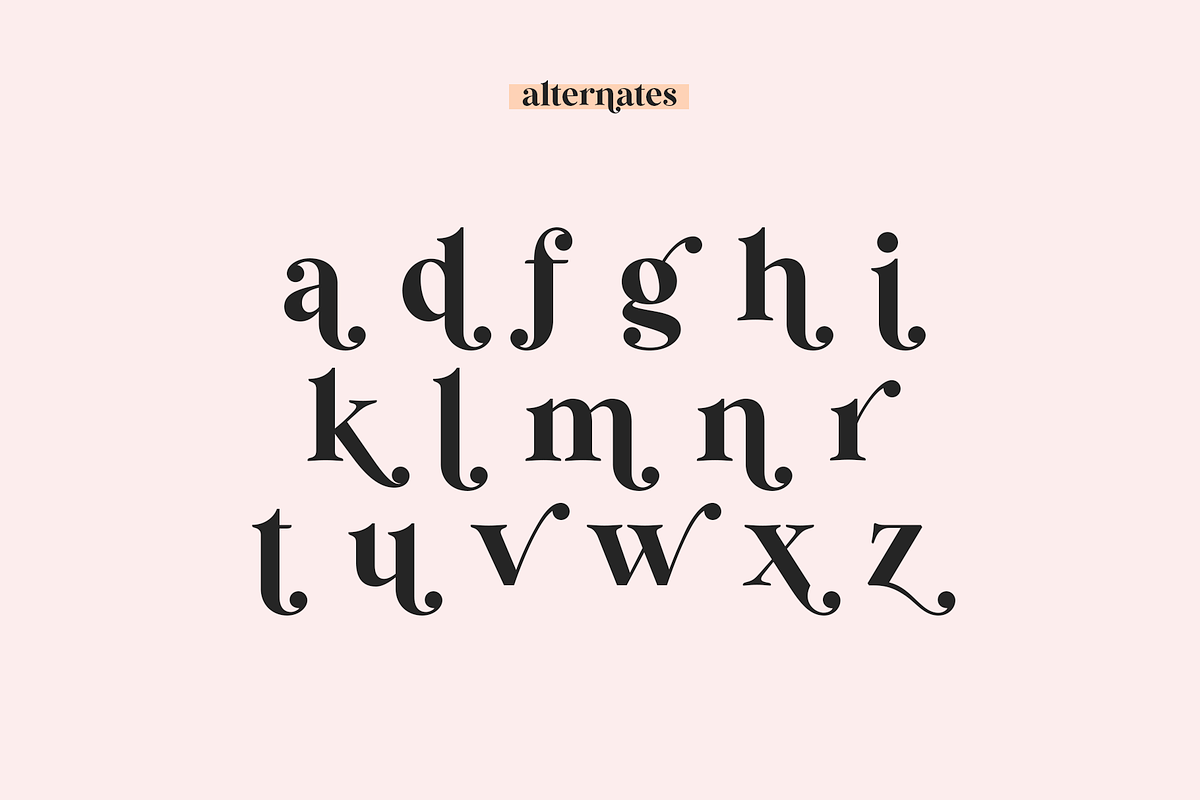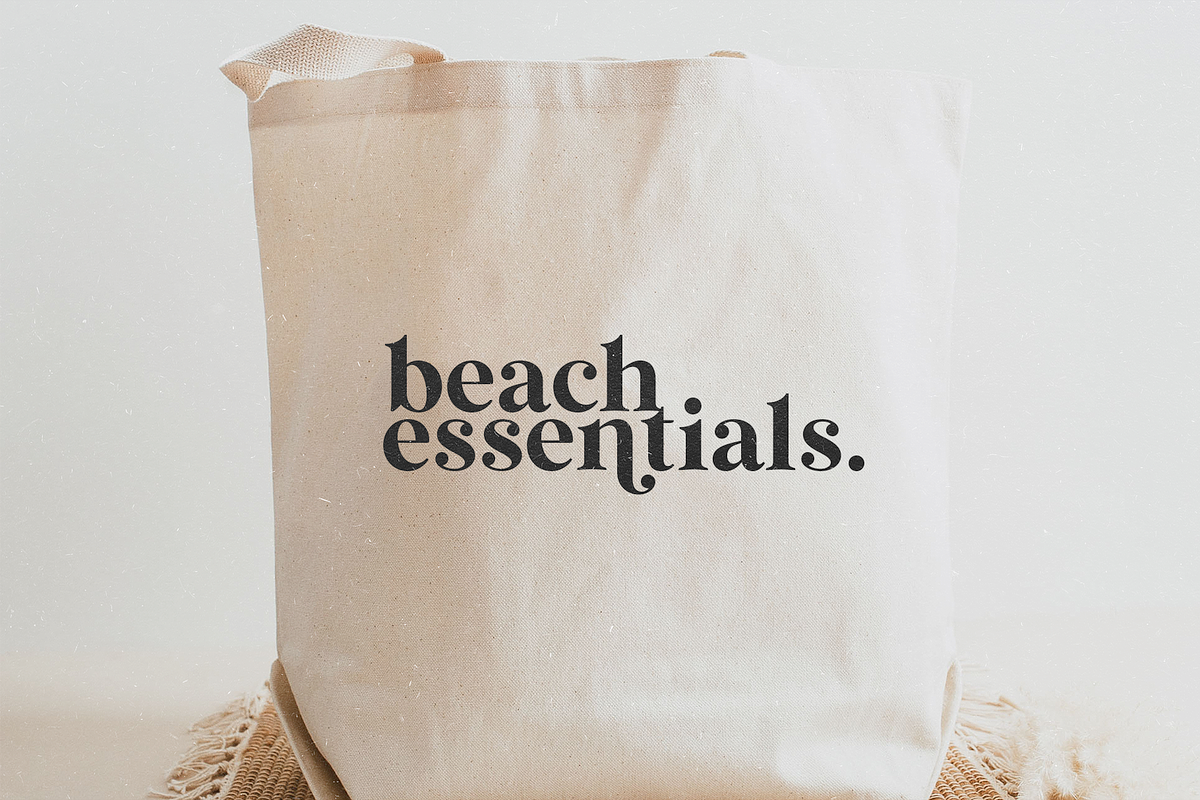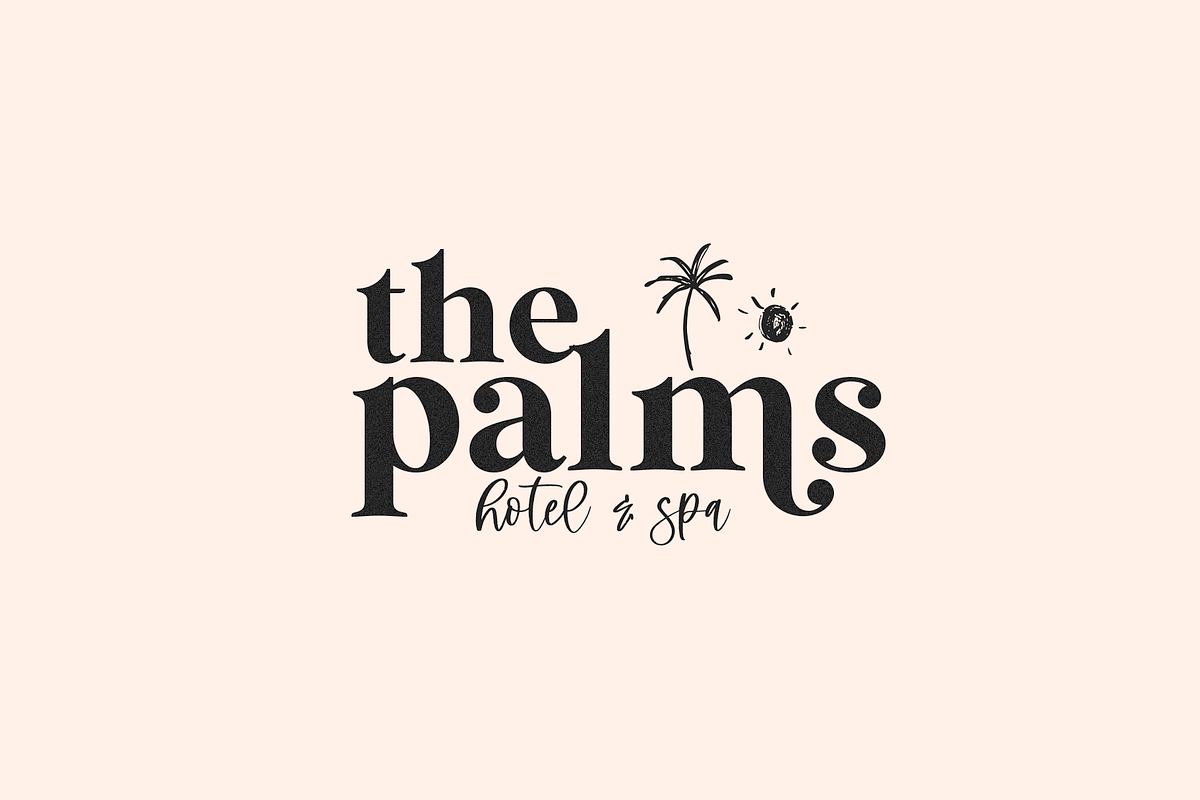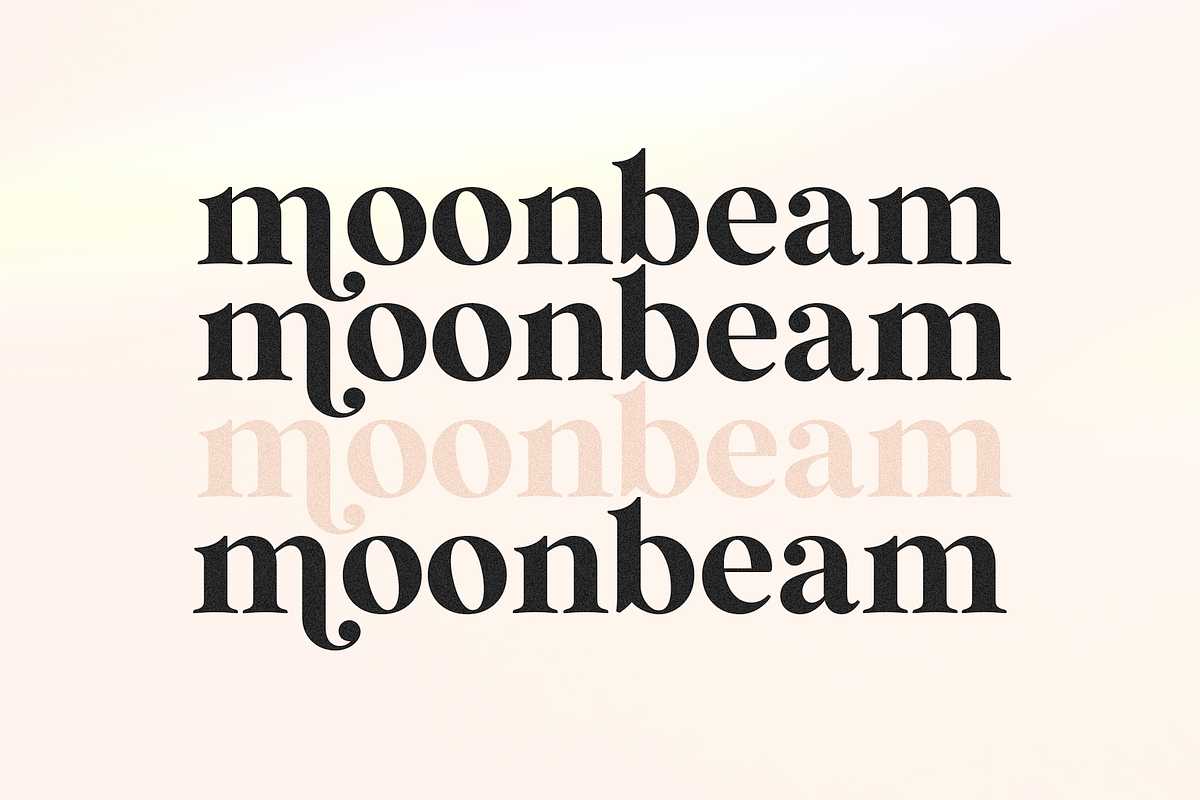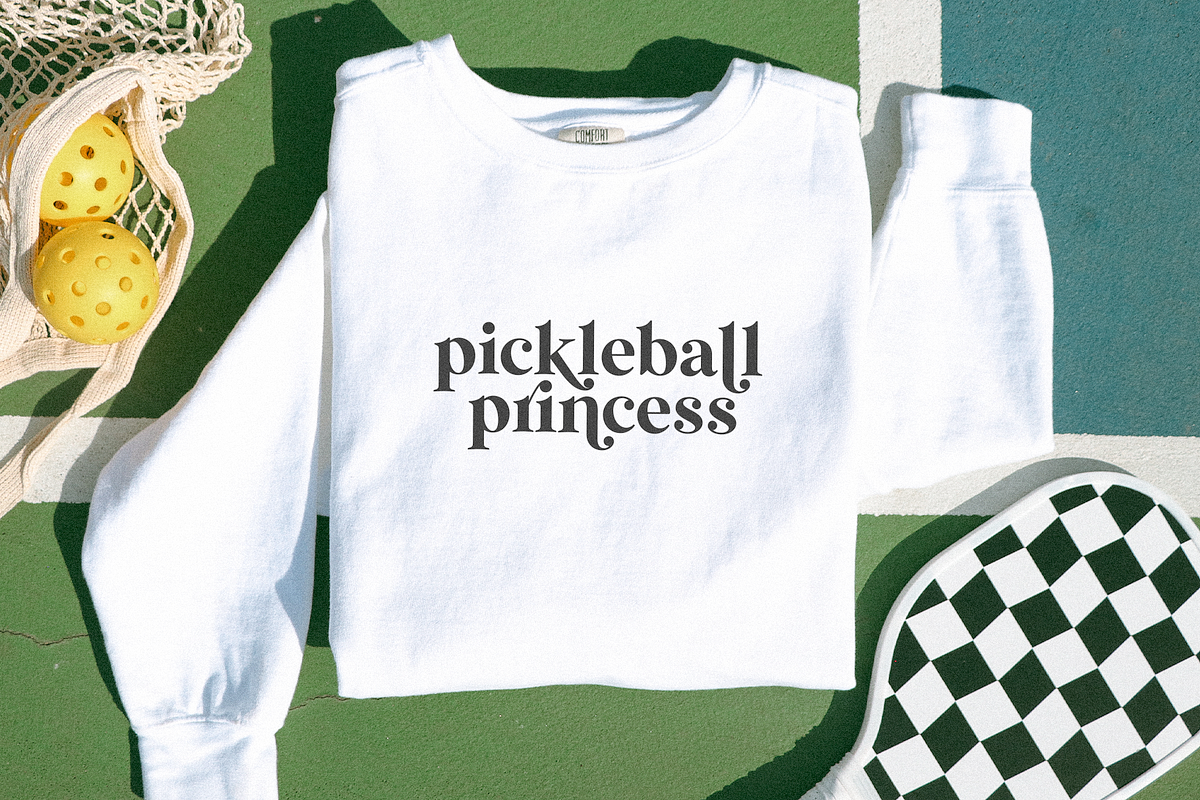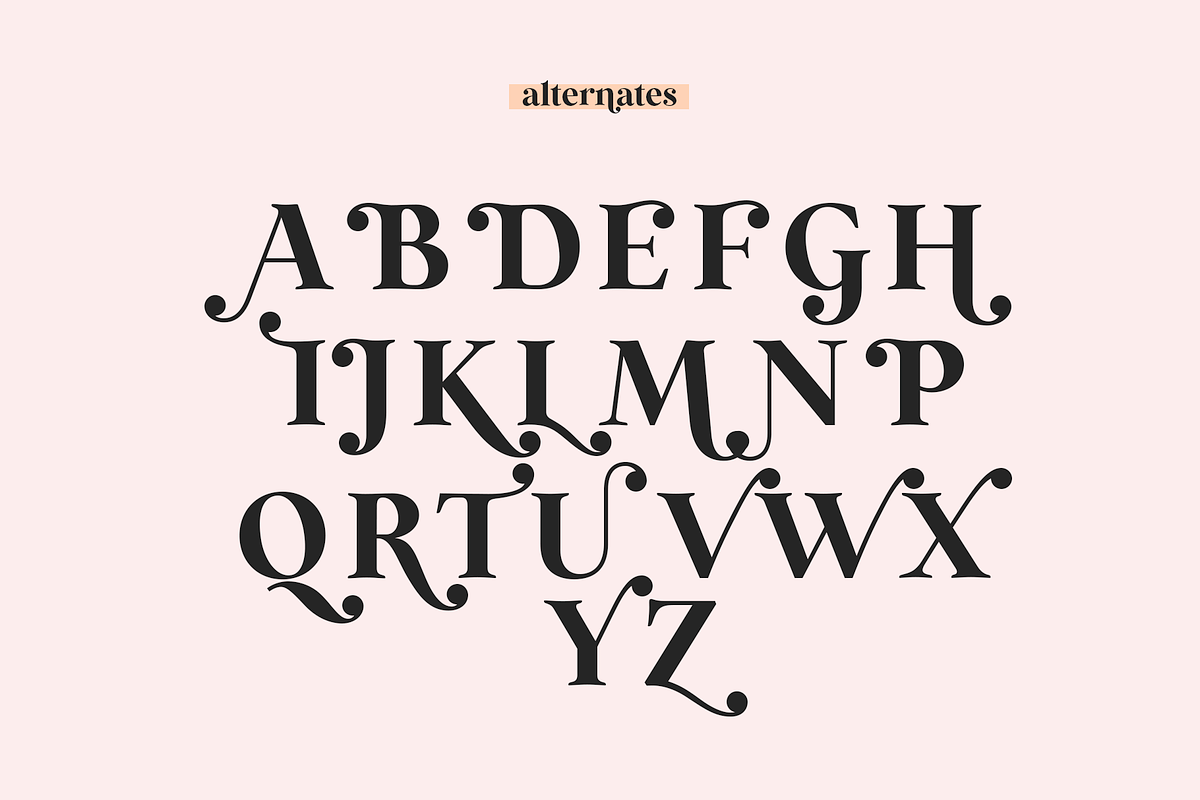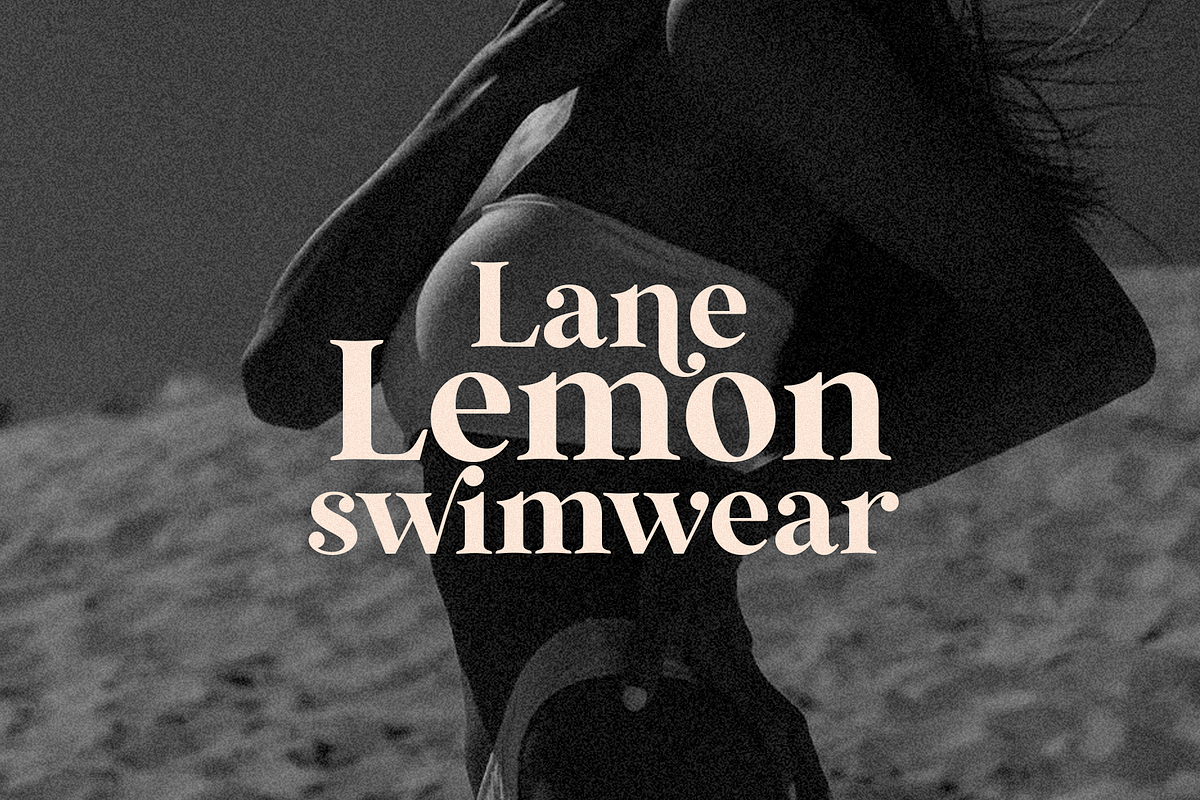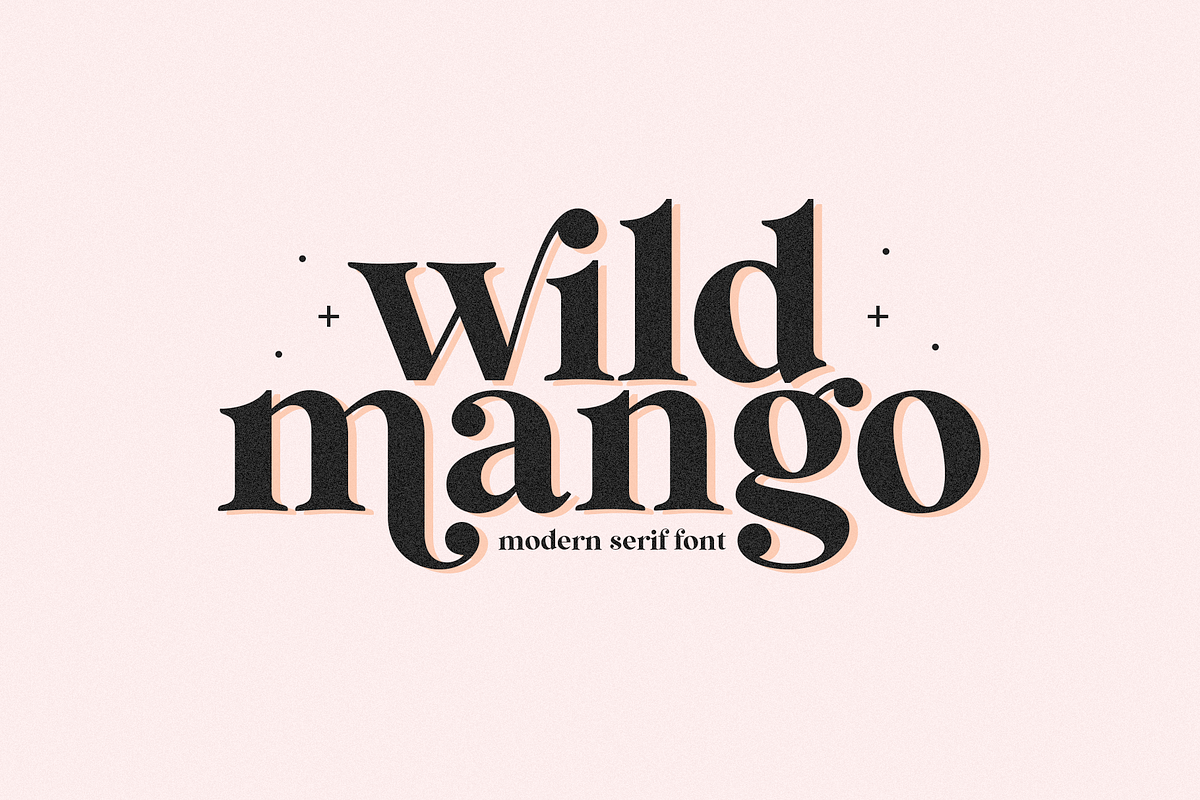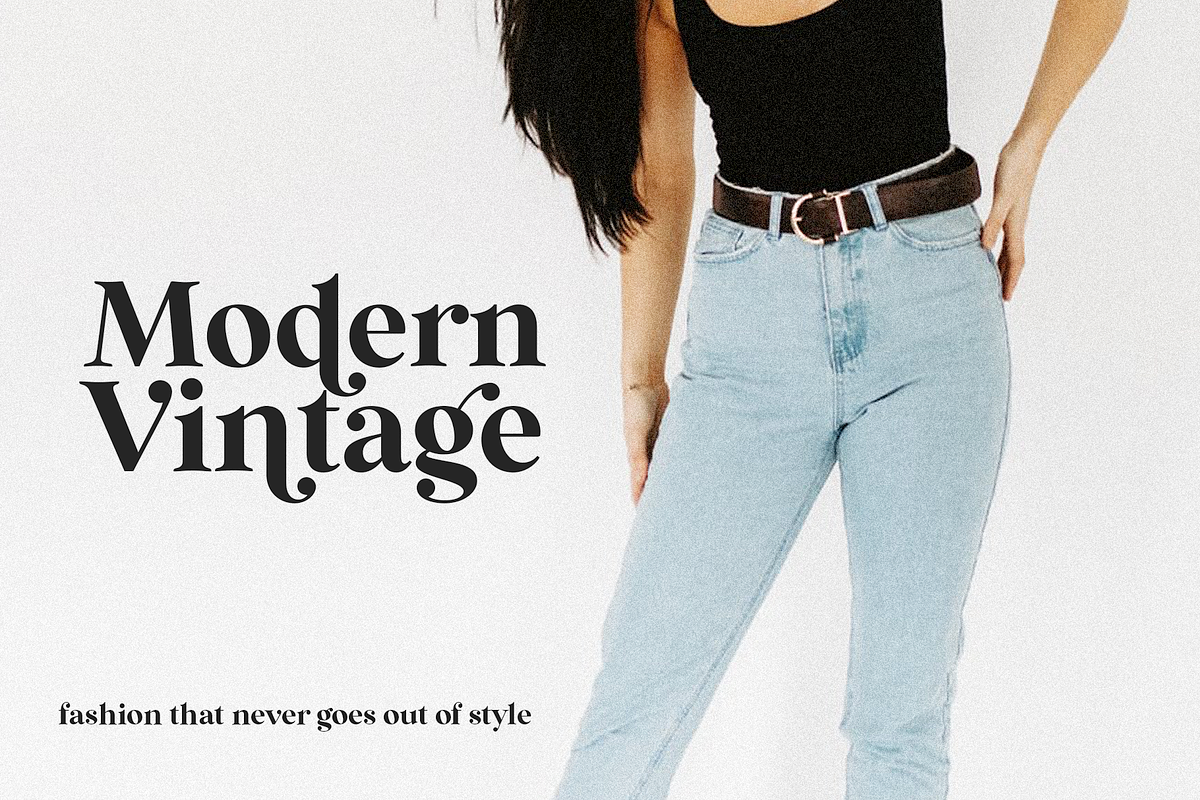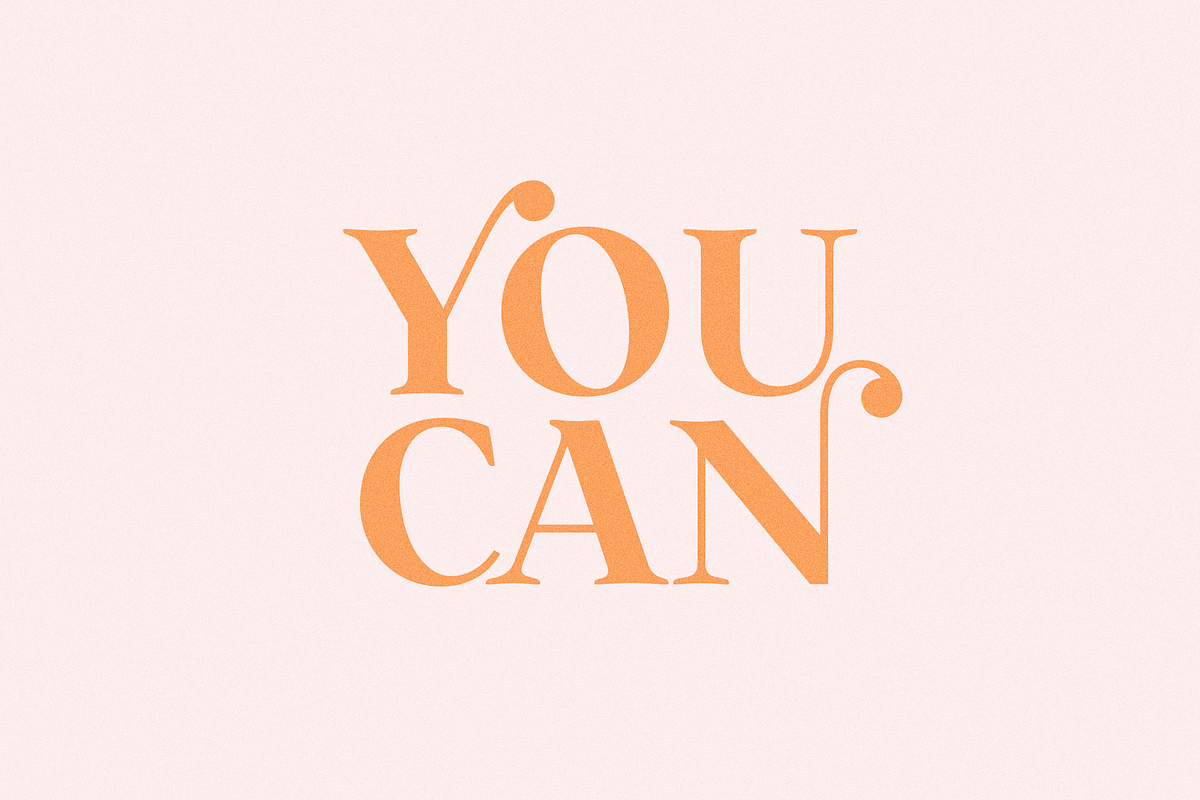
Wild Mango | Modern Serif Font
Wild Mango is a chic + modern serif font.
Wild Mango is unique as it can be used for a variety of design styles. It fits in wonderfully for free-spirited, boho designs and also for more classy editorial looks!
There are a lot of fun stylistic alternates available to use with this font. These letters are embedded into the font file and easily accessible in programs such as photoshop and illustrator.